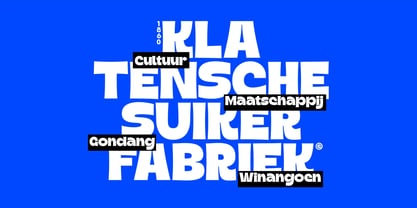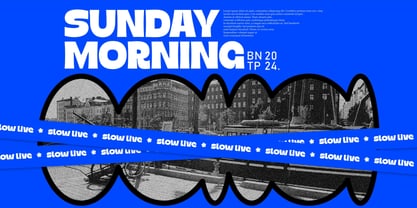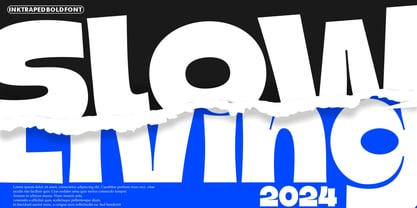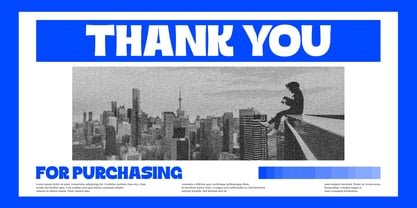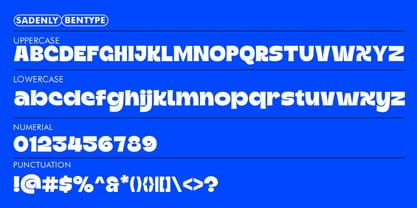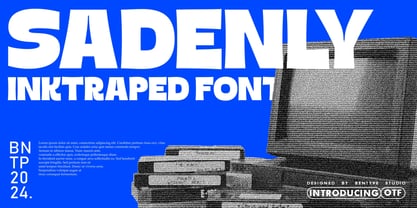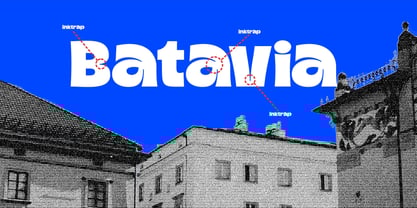
Sadenly
by Bentype
The Sadenly Font Family was designed by Muhammad Farkhan and published by Bentype. Sadenly contains 1 styles. More about this family
Sadenly - Inktraped Font is a brutalism sans display font with several unique stems and joins. Despite their limitations in character set and resolution, remain popular among designers for their distinct visual appeal and nostalgic charm, this font is suitable for your design needs for displays, headlines, banners etc.
• Upper Case & Lower Case
• Numbers
• Punctuation
• Alternate
Designers: Muhammad Farkhan
Foundry: Bentype